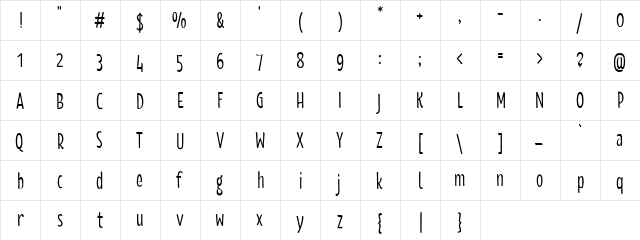
Starshipo Regular
Design Context for Starshipo Typeface
Starshipo is a composed and adaptable typeface that performs quietly and consistently across a wide range of design contexts.
Pro Tip: Pair Starshipo with a font of contrasting weight or personality to build a more expressive typographic hierarchy.